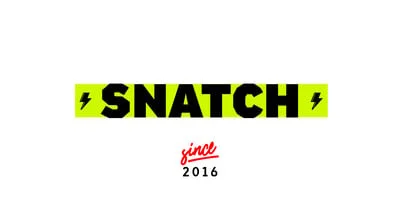
Snatch Font
Snatch Font is perfect for urban streetwear branding, edgy poster designs, modern music album covers, youth culture marketing, extreme sports advertising, graffiti-inspired artwork, rebellious fashion campaigns, contemporary art exhibitions, underground event promotions, and bold advertising headlines. This dynamic typeface creates powerful visual impact in both print and digital urban applications.
What makes Snatch Font exciting is its bold, aggressive character that captures the raw energy of street culture and urban expression. The font features sharp, angular letterforms with dynamic edges and rebellious personality that evoke contemporary street art and urban rebellion. Its powerful design establishes an atmosphere of youthful energy and cultural authenticity that resonates with modern audiences.
Snatch Font family includes energetic styles: Regular, Bold, Black, Condensed, Extended, and Stencil versions. Each variant maintains the font's urban character while providing designers with versatile options for creating impactful typography systems and contemporary street-inspired communications.
This commanding urban typeface brings authentic street energy to projects requiring bold presentation. Whether you're designing youth brands, music marketing, or contemporary cultural materials, Snatch Font delivers exceptional impact and urban authenticity. The font's dynamic proportions and edgy details ensure memorable brand recognition across various contemporary applications.
Street artists and youth brands appreciate how Snatch Font perfectly captures the spirit of urban culture and contemporary rebellion. Its street foundation combined with modern functionality makes it essential for edgy branding and youth-focused projects. Download today and energize your designs with this exceptionally bold urban typography.